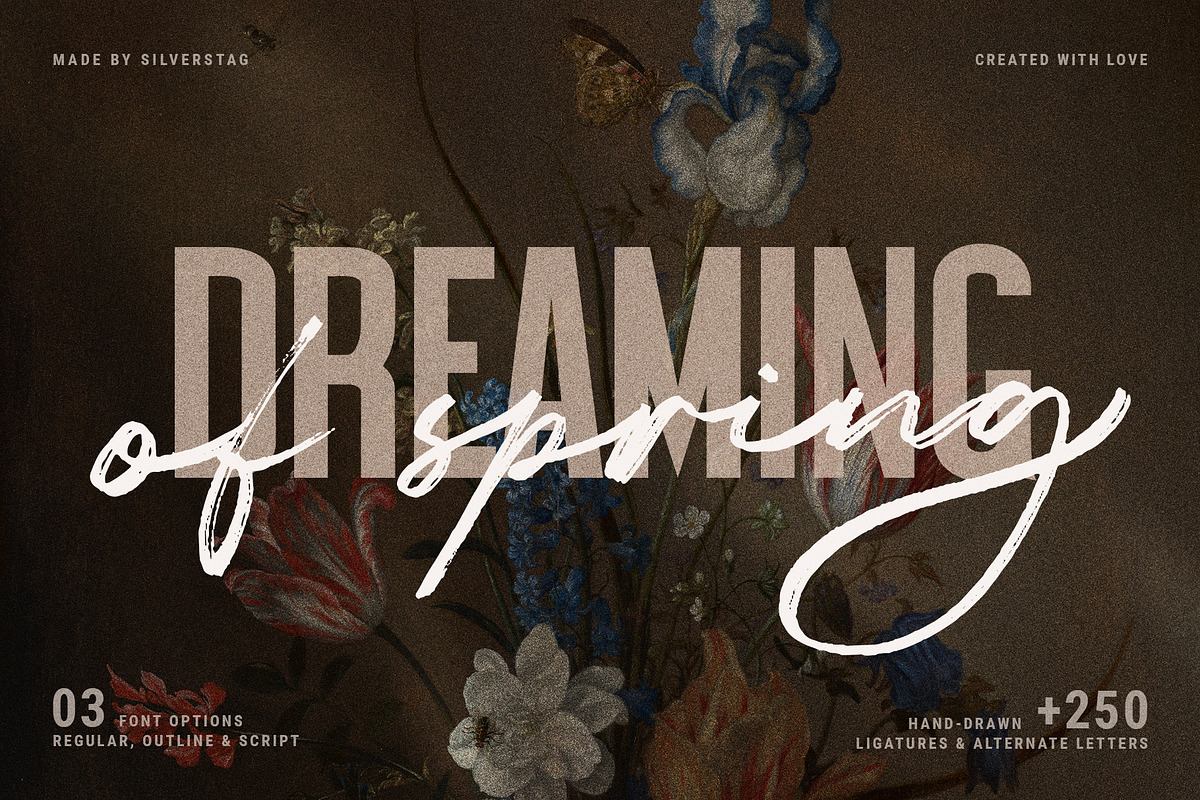
Dreaming Of Spring Stylish Font Duo Free Download
The Dreaming Of Spring Stylish Font Duo Free Download is a beautiful combination of two fonts that bring elegance and creativity to your designs. Featuring a flowing script font and a clean, modern sans-serif, this duo is perfect for creating stunning logos, invitations, branding, posters, and more. Whether you're working on a spring event, wedding branding, or a fresh new project, Dreaming Of Spring adds a sophisticated yet playful touch to your work.
Dreaming Of Spring Stylish Font Duo Free Download is ideal for designers looking to create eye-catching, elegant typography with a modern twist. Perfect for seasonal designs, upscale branding, or artistic invitations, this font duo will elevate your work with its charming and stylish vibe. Download it today and bring a refreshing, stylish touch to your creative projects!